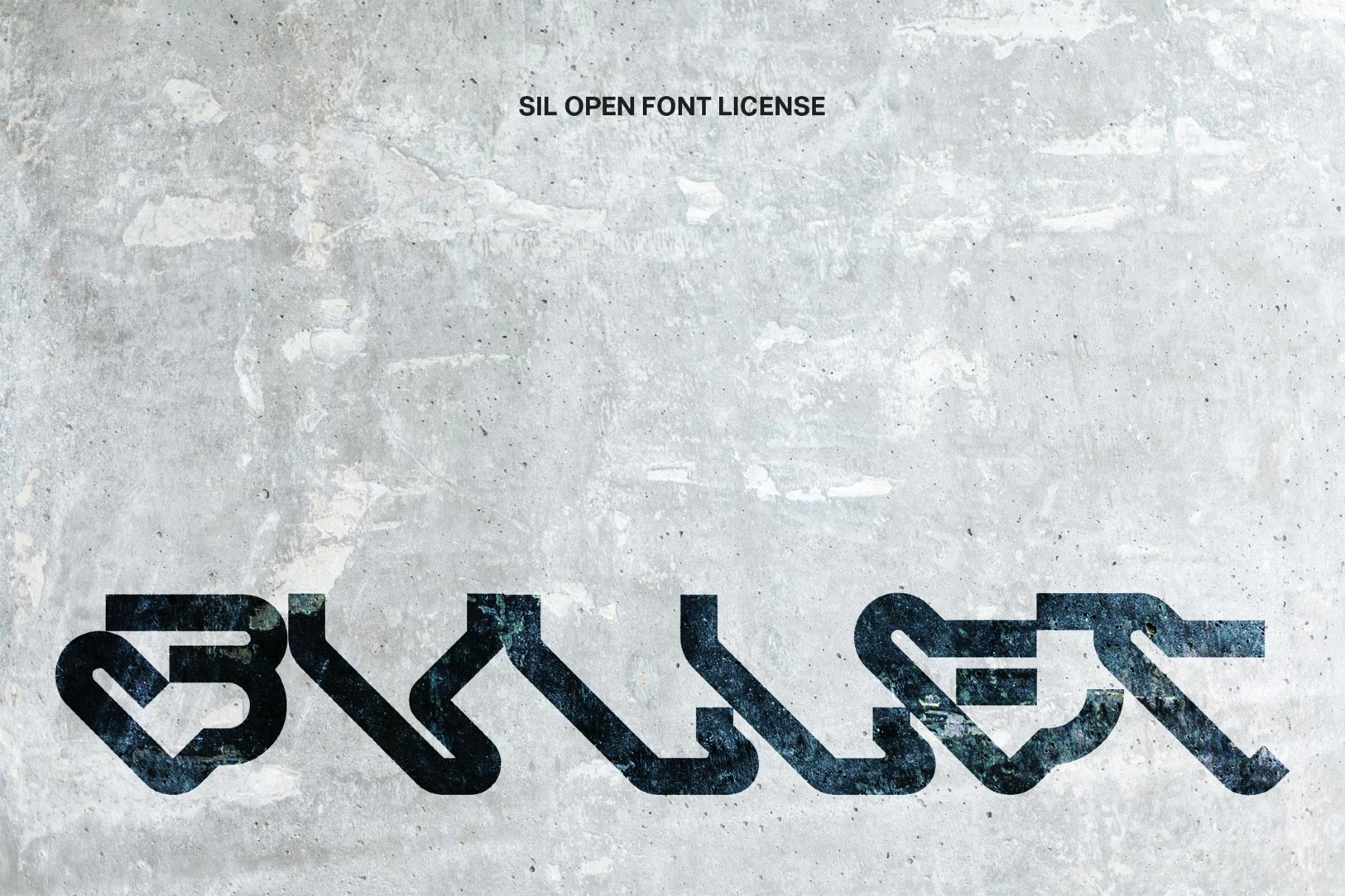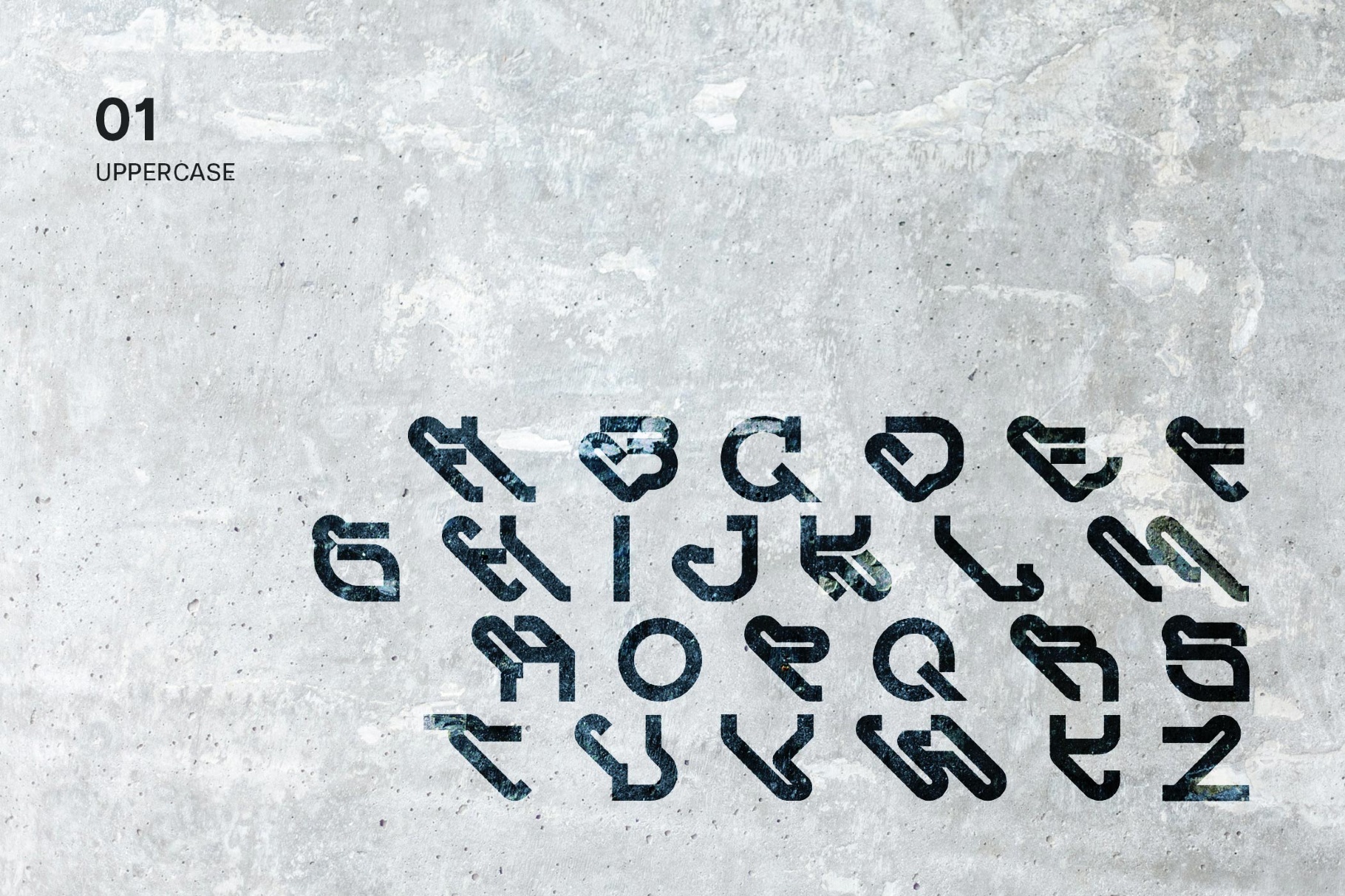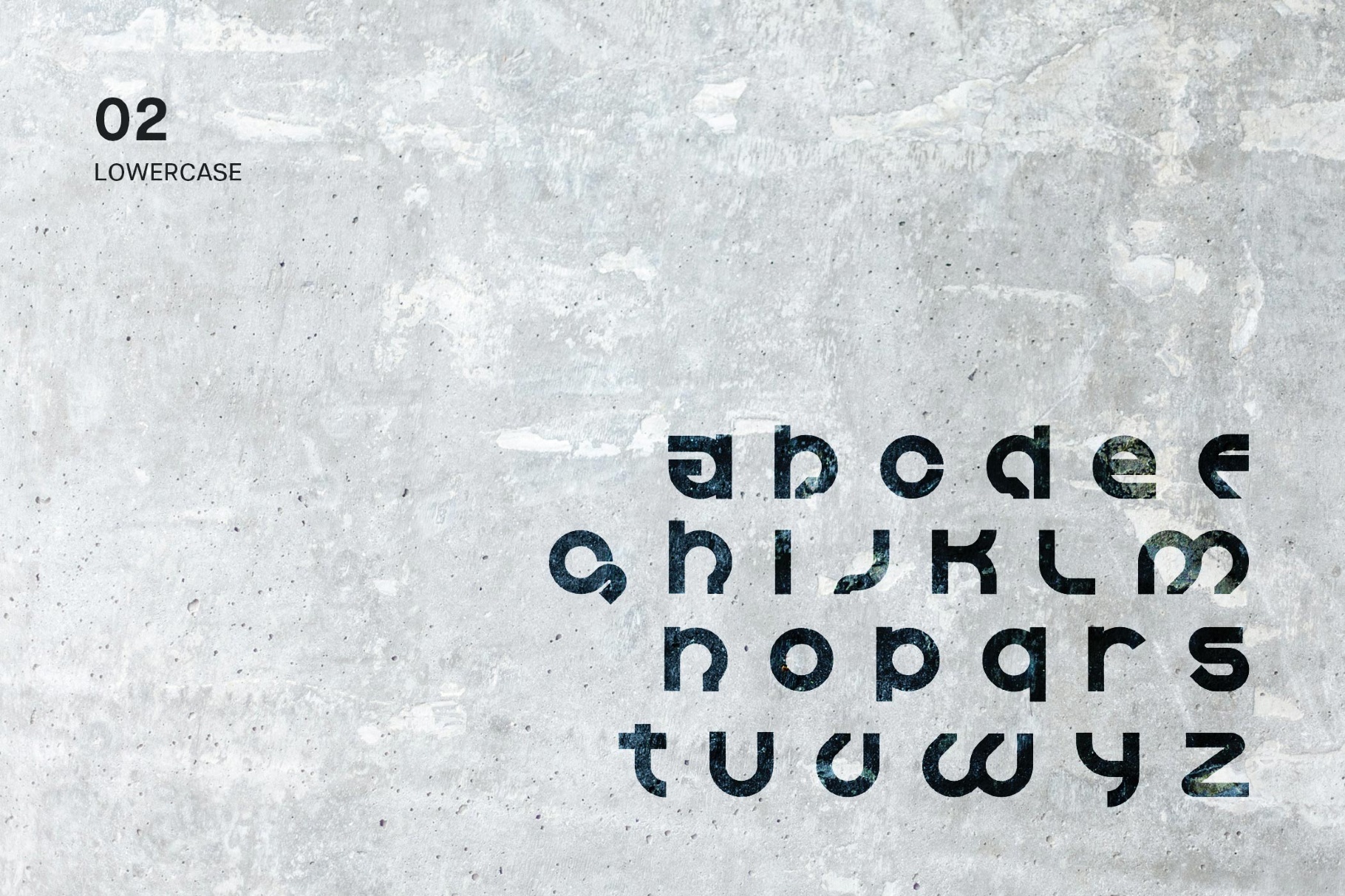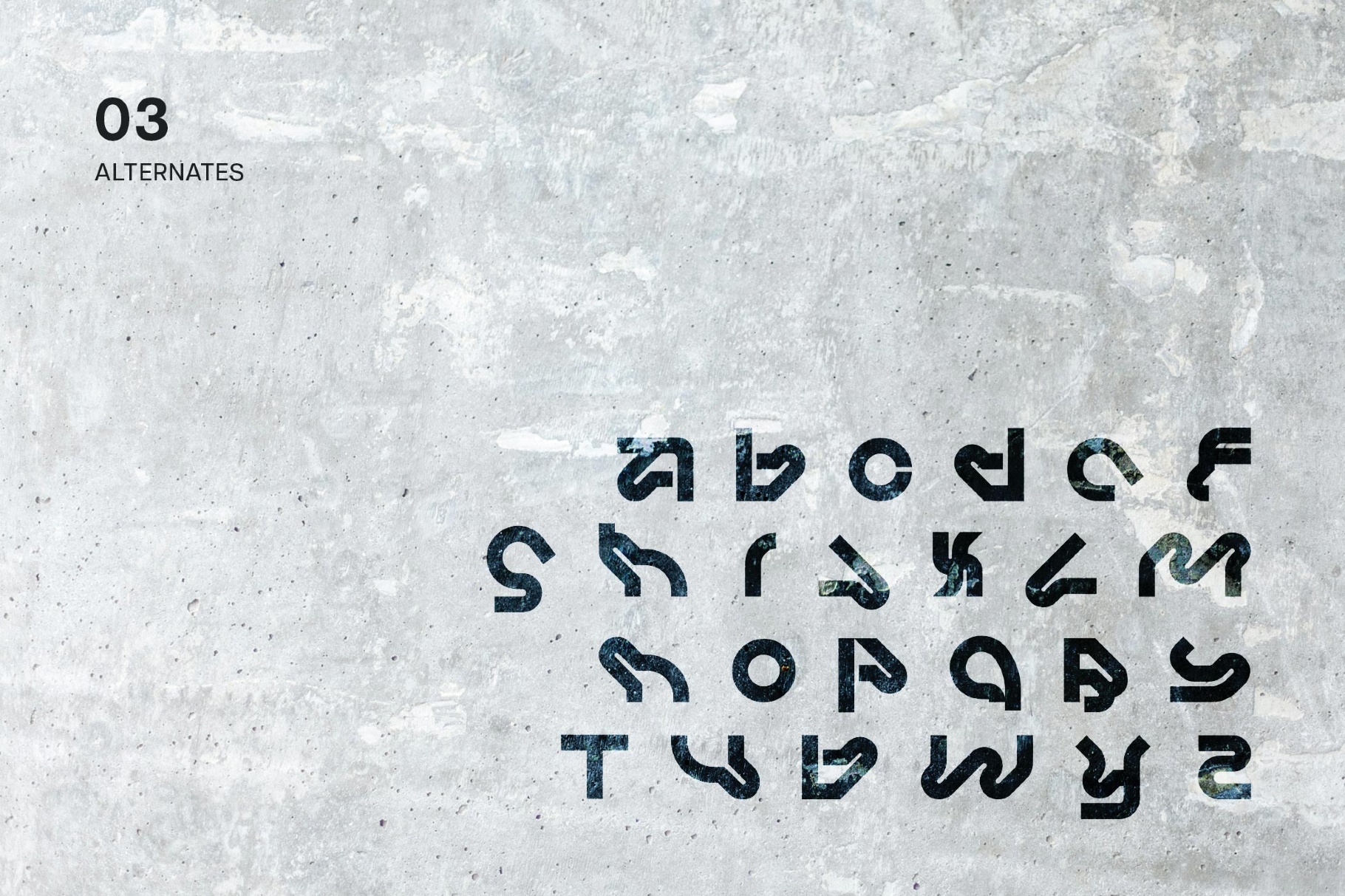
Bvllet Font
BVLLET
Bvllet is a heavy display font built from brutalist geometry and smooth modular curves, with the edged glamour of Y2K and sci-fi game menus. The futuristic sans skeleton, tight rhythm, and generous alternates suit tech and gaming logos, tech packaging, UI overlays, album artwork, event and festival branding. A generous set of alternates gives extra room to vary repeated letters within sci-fi posters, editorial headlines, and banner graphics.